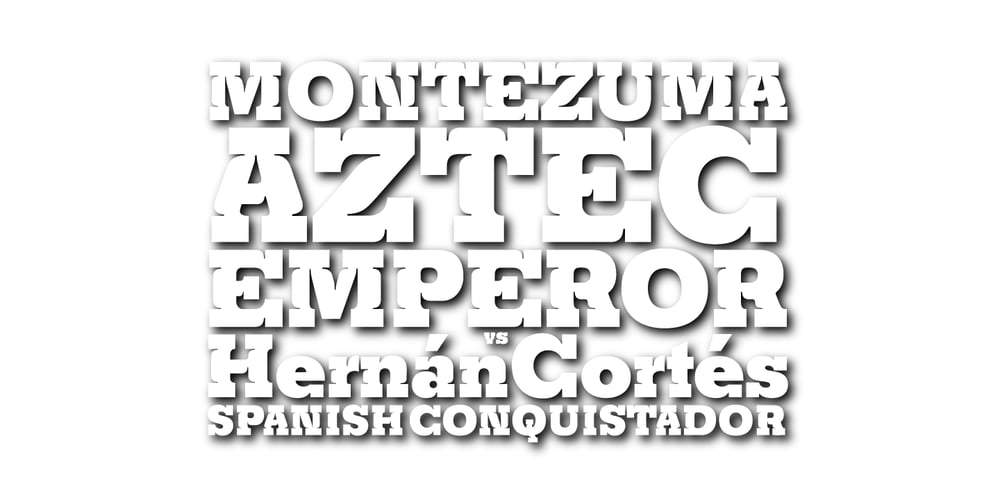
Churchward Montezuma Font Family was designed by Joseph Churchward and published by BluHead Studio. Churchward Montezuma contains 4 styles and family package options. Churchward Montezuma is an unusual serif design by the late Joseph Churchward. The cut-in motif gives this four weight serif family a unique look mostly suitable for display work, but the lighter weights hold up well in text. Each weight has an alternate single story lowercase “a”, and they all support the Western European character set.